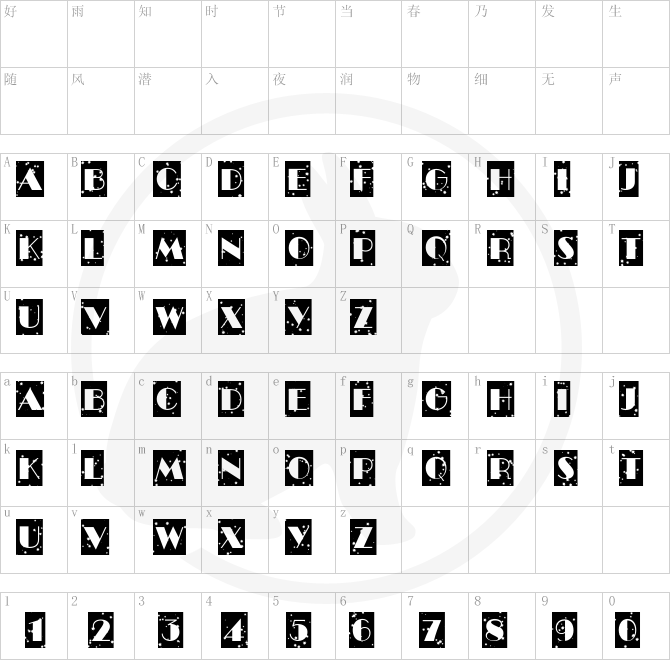
a_BentoCameoStarNight.ttf is a very beautiful artistic font, a_BentoCameoStarNight.ttf is widely used in the design and printing of various books and pictures,a_BentoCameoStarNight.ttf has a strong visual impact,a_BentoCameoStarNight.ttf is a commonly used font in newspapers, magazines and books, and is used in posters, e-commerce Poster design, store design, logo design, font design and other fields.a_BentoCameoStarNight.